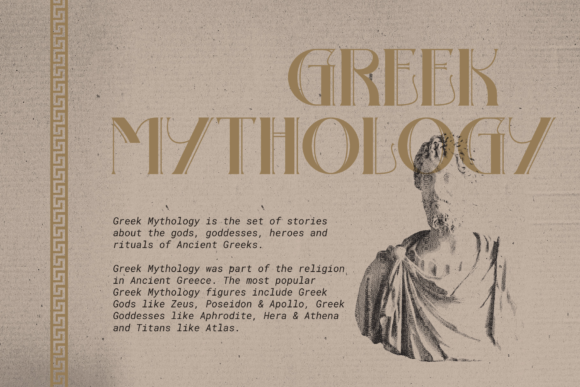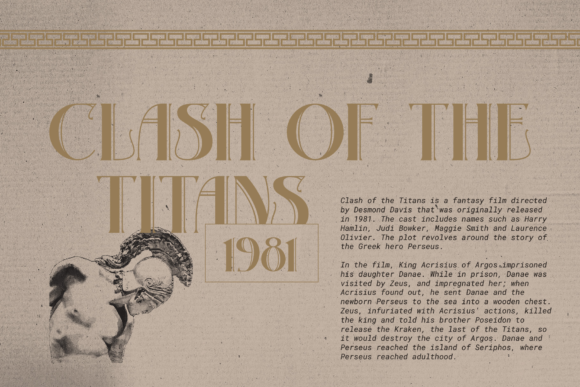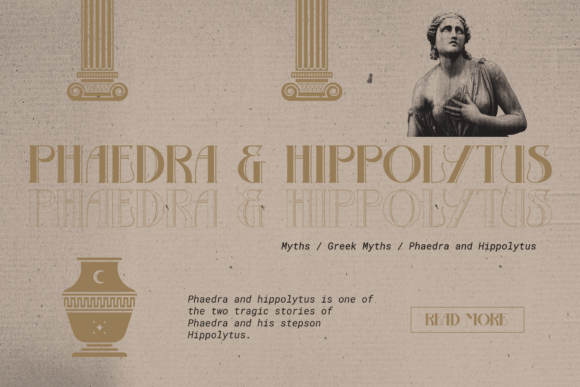
BVENAZTRE is a basic serif font, which was modified into an art deco font that looks vintage and classic.
With the art deco style, it is very suitable for art-style designs or it could be with Greek and Roman styles .
Bvenaztre Font offers exceptional quality and versatility, making it a valuable addition to your design toolkit. Whether you’re creating for personal projects or commercial use, Bvenaztre Font delivers professional results.